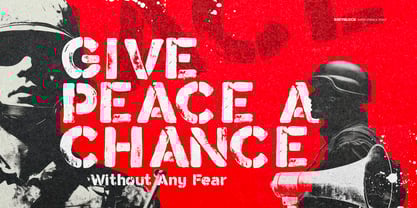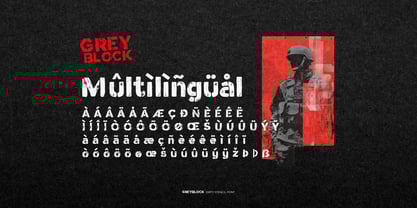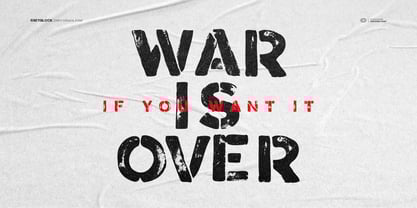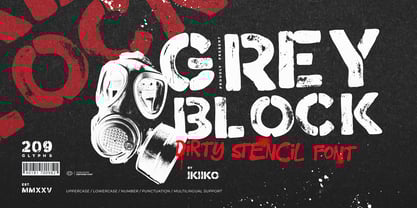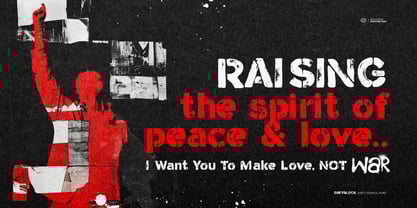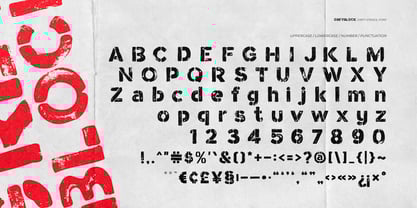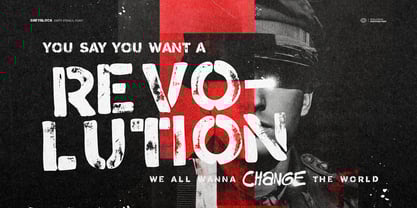
Greyblock
by IKIIKOWRK
The Greyblock Font Family was designed by Andhika Pradana and published by IKIIKOWRK. Greyblock contains 1 styles.
Proudly present Greyblock - Dirty Stencil Font, created by ikiiko.
Greyblock is a bold and dynamic stencil font that embraces imperfection through its unique hand-drawn and handcrafted design. Featuring a rough style and natural texture, the font conveys an army look with a raw, authentic character. Its intentionally uneven kerning adds to the font's charm, creating a raw and organic feel that enhances its rugged and unpolished aesthetic.
This font is perfect for projects requiring a bold and striking visual, like posters, book covers, movie titles, packaging & stylish fashion streetwear. The uneven spacing and rugged texture give each design a gritty, rebellious edge while maintaining a natural, handcrafted appeal.
• Uppercase & Lowercase
• Numbers & Punctuation
• Multilingual Support